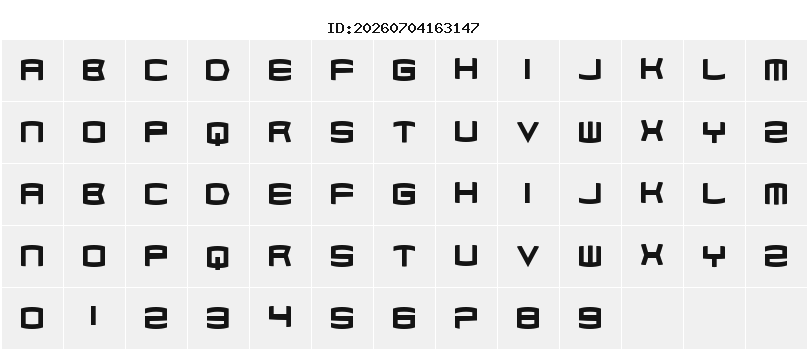
• Font Name: Dubstep Cadence
• Full Font Name: Dubstep Cadence
• Version: Version 1.00 June 29, 2013, initial release
About Dubstep Cadence.otf
Dubstep Cadence.otf is a modern, elegant sans-serif font designed for ultimate readability and visual harmony. Perfect for branding, headlines, web design, and print materials.